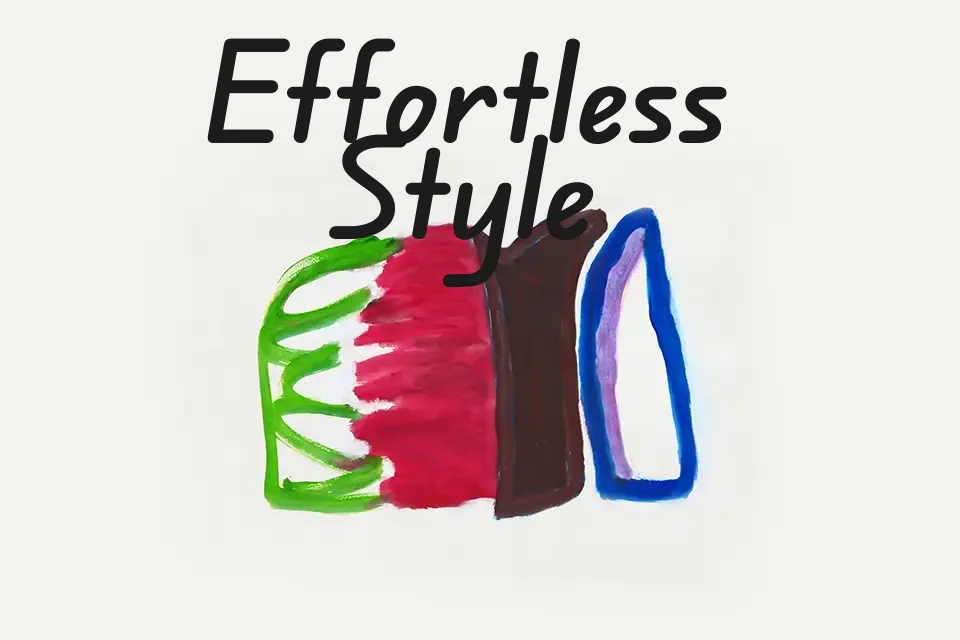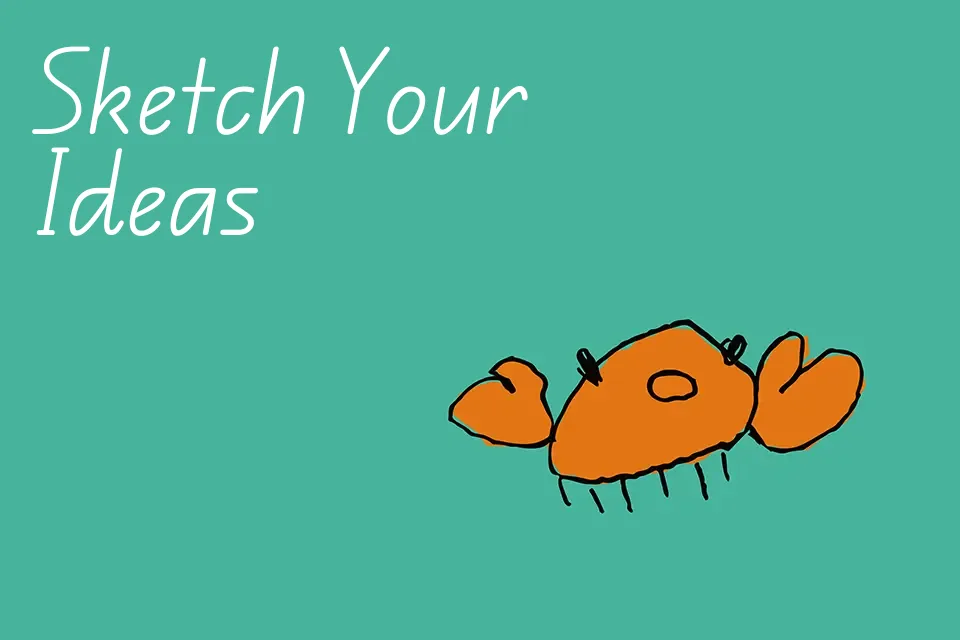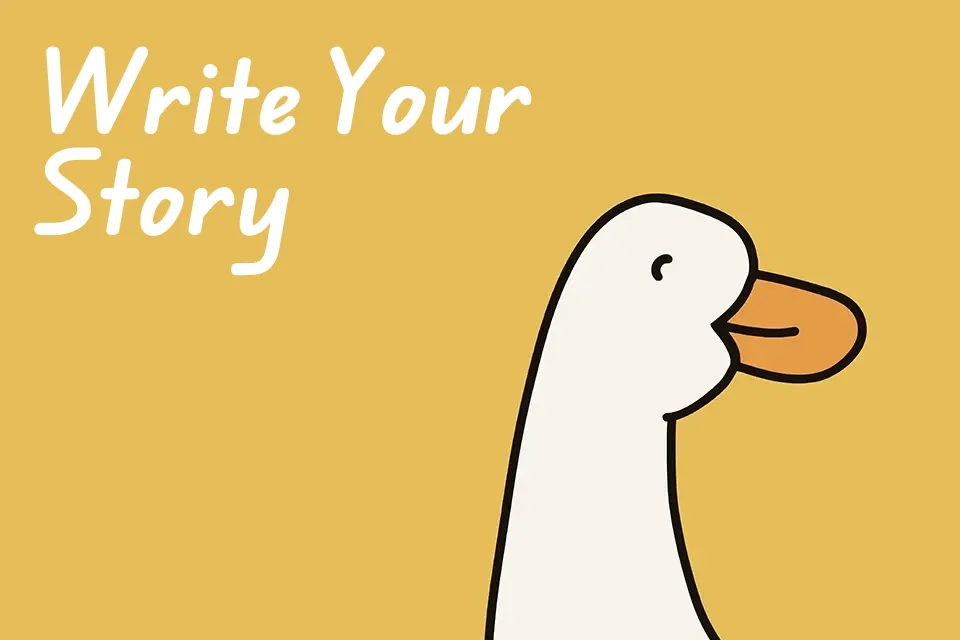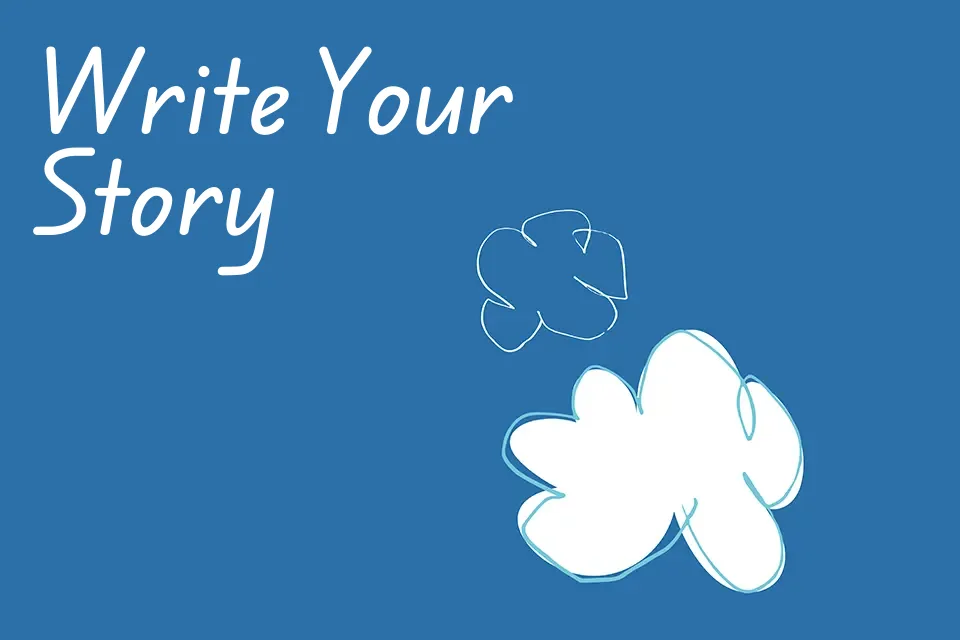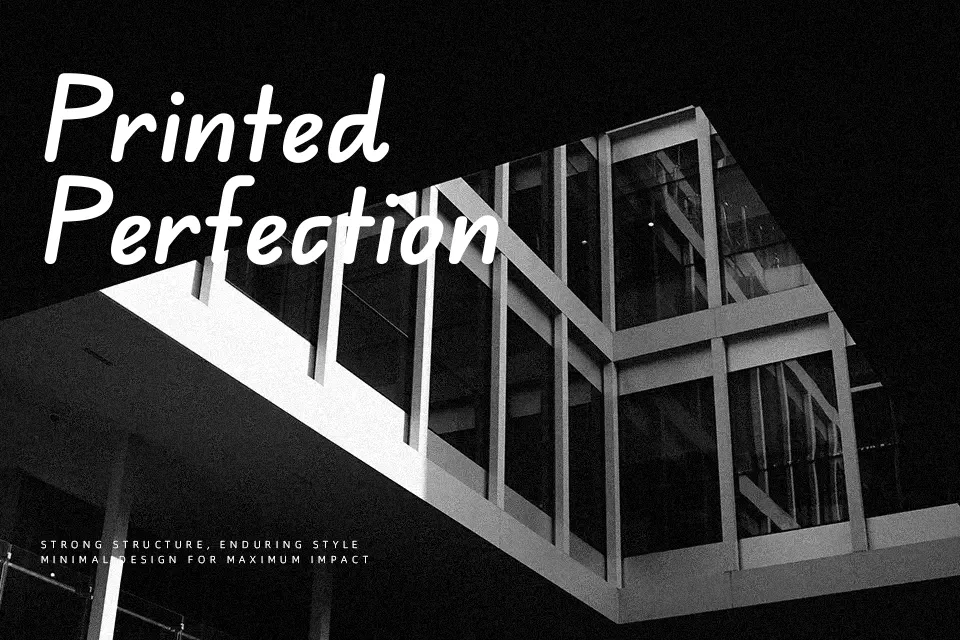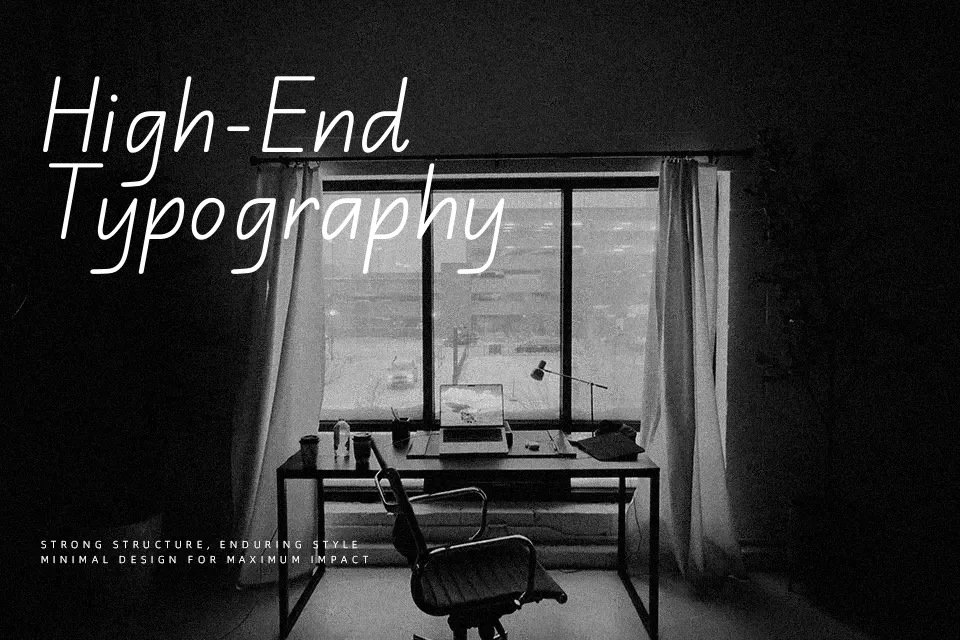
Edu QLD Hand Font
Edu QLD Hand mimics neat teacher handwriting, with rounded monoline strokes, open counters, and generous spacing that keeps letters easy to distinguish at small sizes. The Queensland curriculum letterforms, including single‑story a and g, give it a distinctly educational flavor rather than a generic doodle look. Across its multiple weights, it stays steady and regular, which helps when laying out worksheets, wall charts, or handwriting practice pages that must remain highly legible after photocopying. It also adapts nicely to kids’ product packaging or learning apps where you want handwriting energy without messy texture. For long passages in serious editorial work or polished corporate branding, though, its school-room personality can feel out of place.
classroom worksheets and printables
primary school posters and charts
kids learning apps and interfaces
education-focused branding and materials
long-form editorial reading
luxury or high-end branding
highly condensed body copy
Perfect for branding, headline, and kids, with a clean and handwritten style.